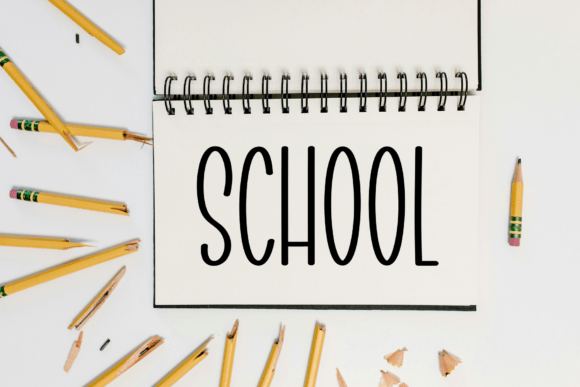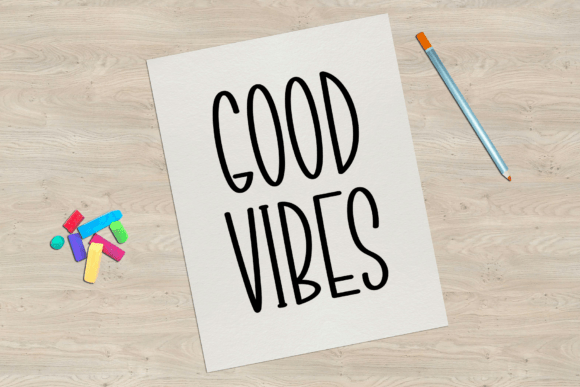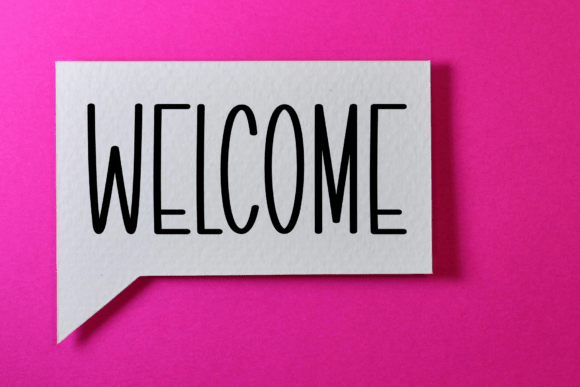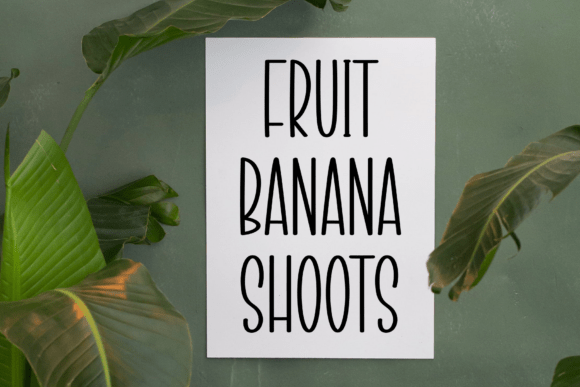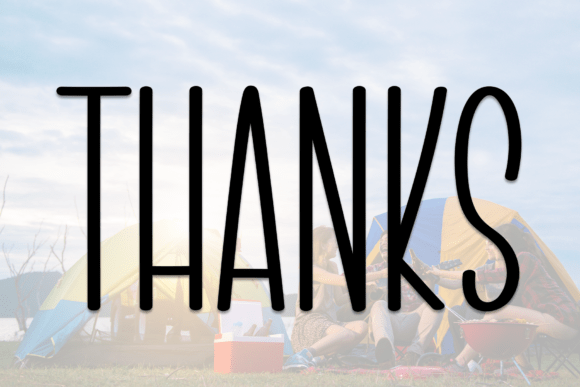
Camping Font: The Perfect Choice for Your Design Needs
Are you looking for a font that exudes a sense of relaxation and sportiness? Do you want to add a touch of luxury and elegance to your designs without making them look too formal? Look no further than the Camping Font. This beautiful, handwritten font is perfect for a wide range of design applications, from branding and logos to wedding supplies and greeting cards.
What is Camping Font?
Camping Font is a unique, handwritten font that looks like it was drawn with a marker. Its relaxed and sporty feel makes it an ideal choice for designers who want to create a casual, yet sophisticated look. The font’s elegant and refined appearance makes it perfect for luxury brands, fashion designers, and crafters who want to add a touch of high-end style to their designs.
Characteristics of Camping Font
Camping Font has several characteristics that make it stand out from other fonts. Some of its key features include:
- Handwritten look: The font has a beautiful, handwritten look that gives it a personal and unique feel.
- Marker-like appearance: The font looks like it was drawn with a marker, which gives it a fun and casual feel.
- Relaxed and sporty feel: The font’s relaxed and sporty feel makes it perfect for designs that require a casual, laid-back look.
- Luxurious and elegant: Despite its casual feel, the font still has a luxurious and elegant appearance that makes it perfect for high-end designs.
Uses of Camping Font
Camping Font is a versatile font that can be used for a wide range of design applications. Some of the most popular uses of the font include:
- Branding and logos: The font’s unique and memorable appearance makes it perfect for branding and logos.
- Wedding supplies: The font’s elegant and refined appearance makes it perfect for wedding supplies, such as invitations, programs, and place cards.
- Greeting cards: The font’s casual and friendly feel makes it perfect for greeting cards, such as birthday cards, thank-you cards, and holiday cards.
- Fashion and lookbooks: The font’s luxurious and elegant appearance makes it perfect for fashion designs, such as lookbooks, catalogs, and advertisements.
- Marketing promotions: The font’s attention-grabbing appearance makes it perfect for marketing promotions, such as flyers, brochures, and social media graphics.
Why Choose Camping Font?
There are many reasons why designers and crafters choose Camping Font for their design needs. Some of the top reasons include:
- Unique and memorable appearance: The font’s unique and memorable appearance makes it stand out from other fonts.
- Versatility: The font’s versatility makes it perfect for a wide range of design applications.
- High-quality design: The font is designed to high standards, ensuring that it looks great in any design.
Tips for Using Camping Font
Here are a few tips for using Camping Font in your designs:
- Use it sparingly: While the font is beautiful, it can be overwhelming if used too much. Use it sparingly to create a focal point in your design.
- Pair it with other fonts: The font pairs well with other fonts, such as sans-serif fonts and script fonts. Experiment with different pairings to find the one that works best for your design.
- Adjust the size and color: Adjust the size and color of the font to create visual interest and hierarchy in your design.
Camping Font is a beautiful, handwritten font that is perfect for designers and crafters who want to add a touch of luxury and elegance to their designs. Its relaxed and sporty feel makes it ideal for a wide range of design applications, from branding and logos to wedding supplies and greeting cards. With its unique and memorable appearance, versatility, and ease of use, Camping Font is a great choice for any designer or crafter looking to create high-quality designs.